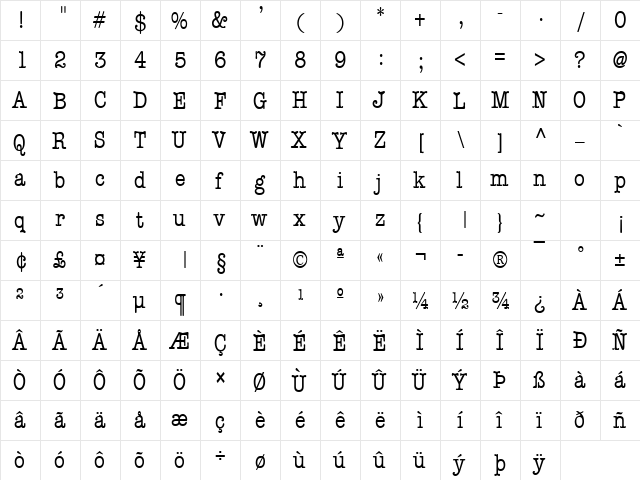
Typist Condensed Normal
Design Context for Typist Condensed Typeface
Typist Condensed is a composed and adaptable typeface that performs quietly and consistently across a wide range of design contexts. The condensed width makes it efficient for tight spaces without sacrificing legibility.